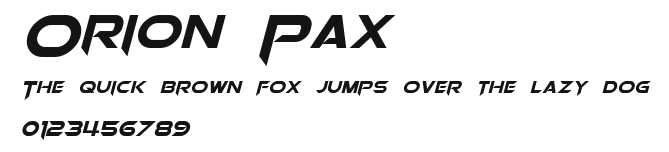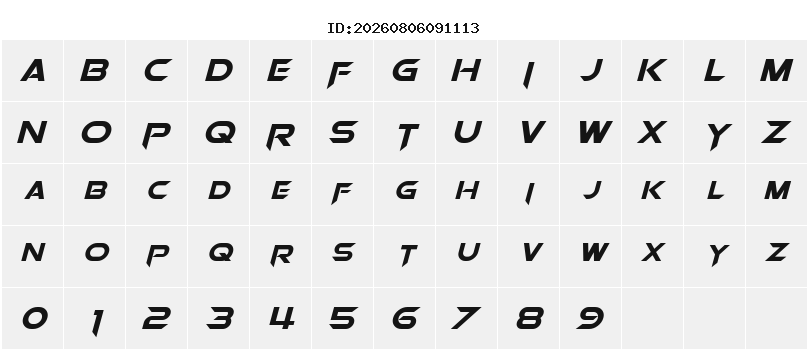
Orion Pax Preview
• Font Name: Orion Pax
• Designer: Neale Davidson
About Orion Pax.otf
Orion Pax.otf is a modern, elegant sans-serif font designed for ultimate readability and visual harmony. Perfect for branding, headlines, web design, and print materials.